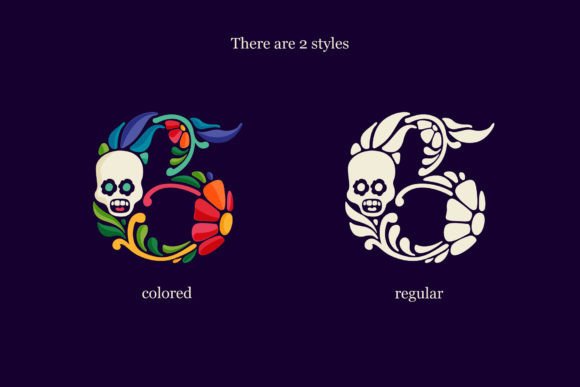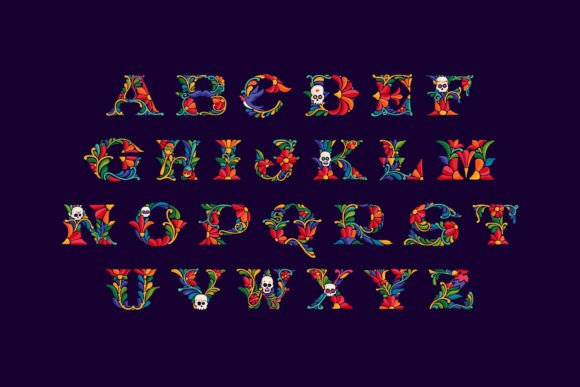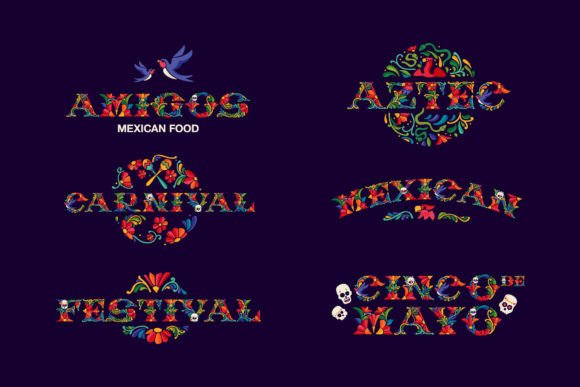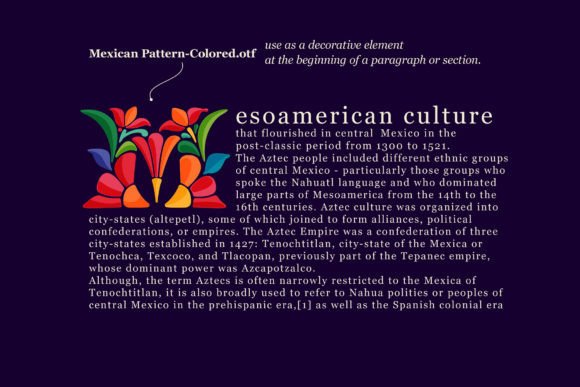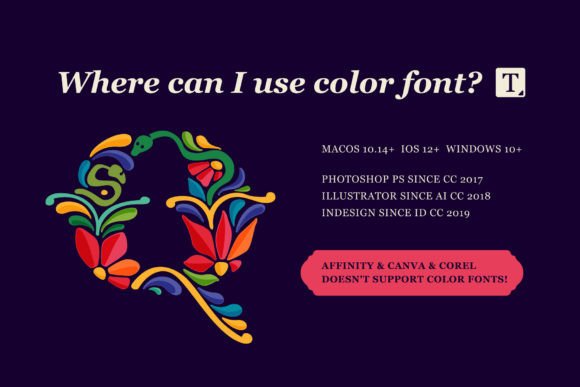
Introduction to Mexican Pattern Font
Mexican Pattern is a beautiful display font with a classic Mexican style, and a colorful, ornate pattern.
Mexican patterns appeared as a result of the fusion of two cultures Aztec and Mayan heritage mingled with Spanish traditions in bright colors.
Key Features of Mexican Pattern Font